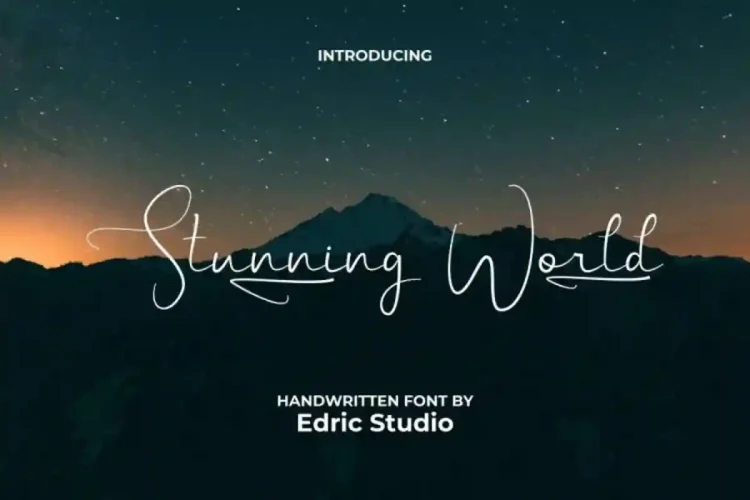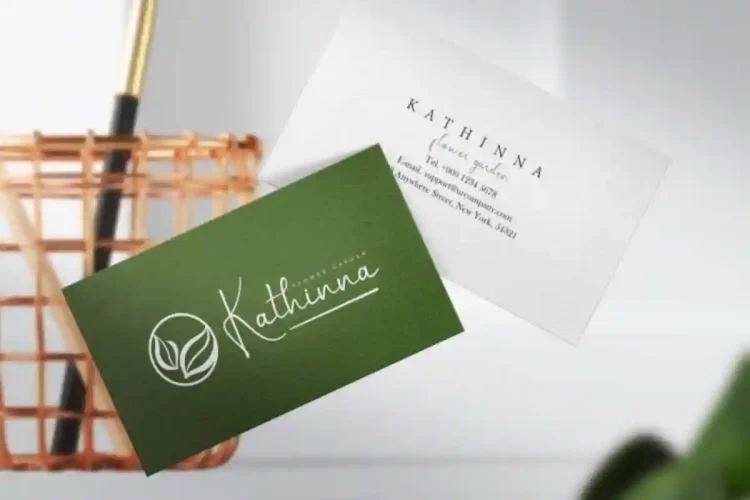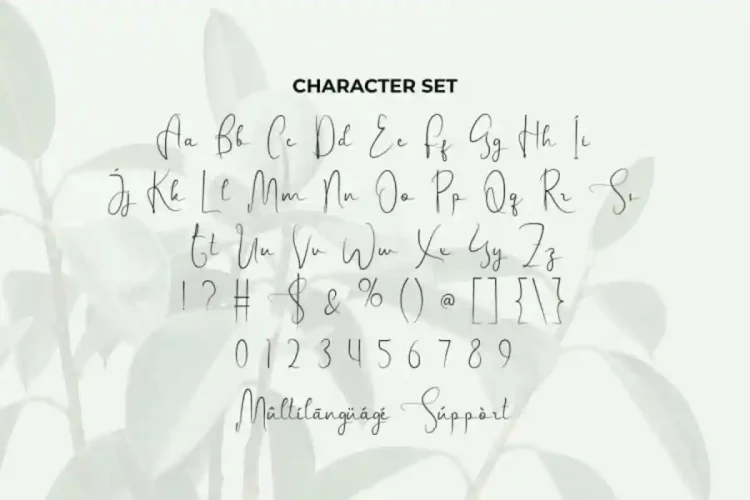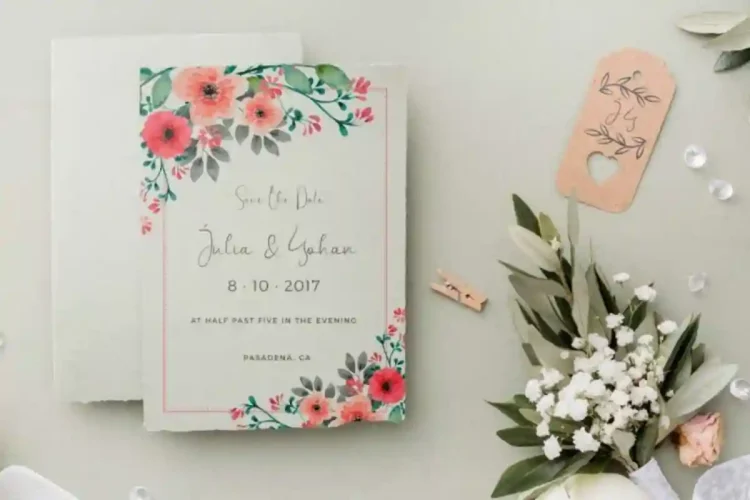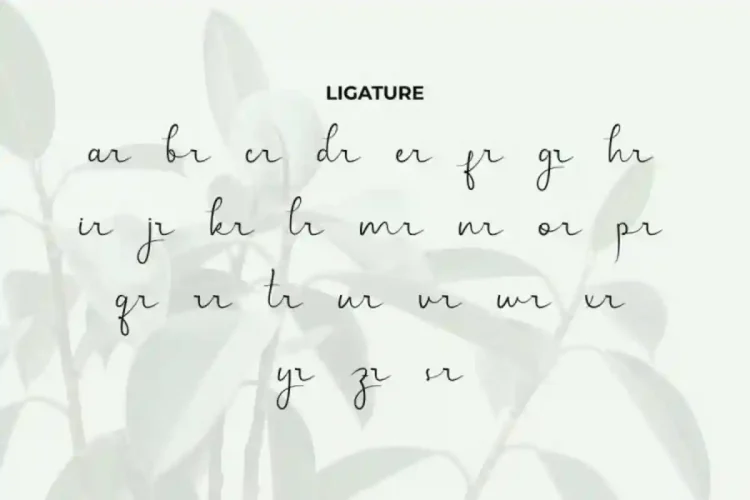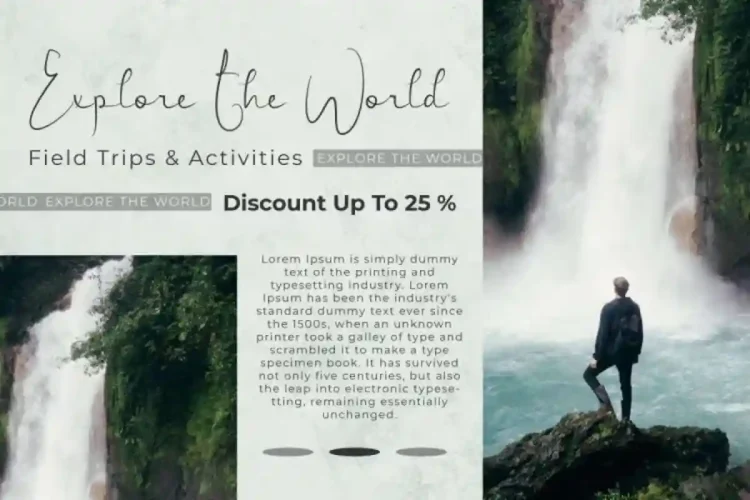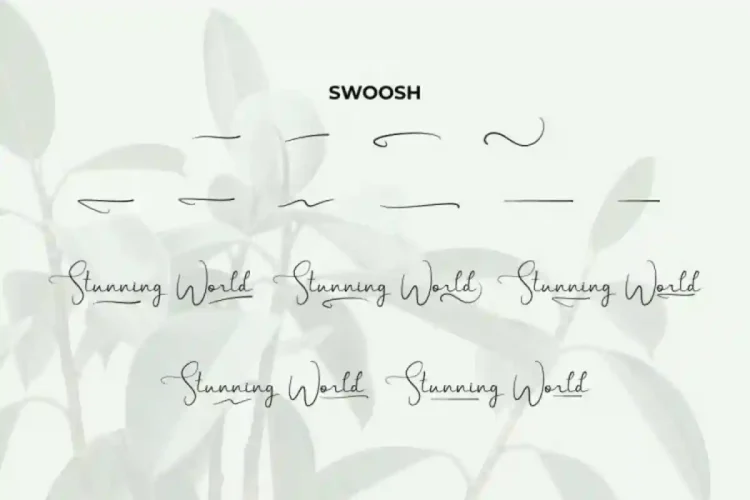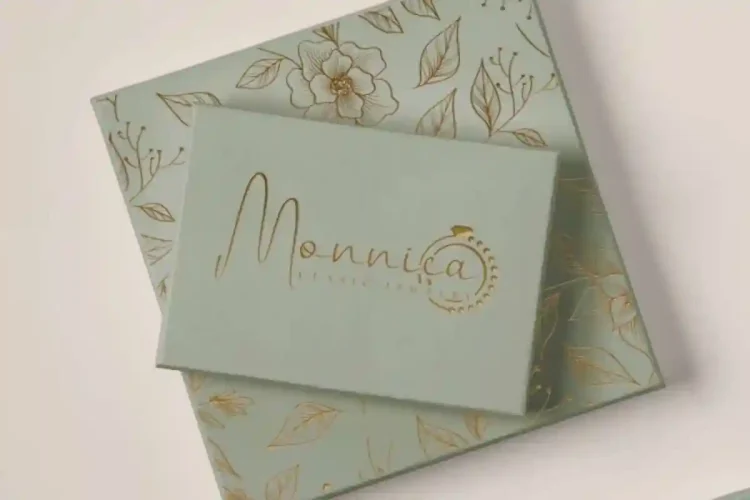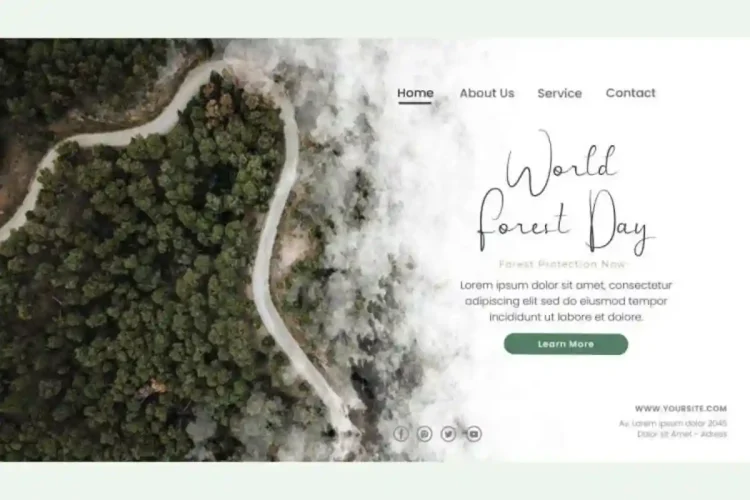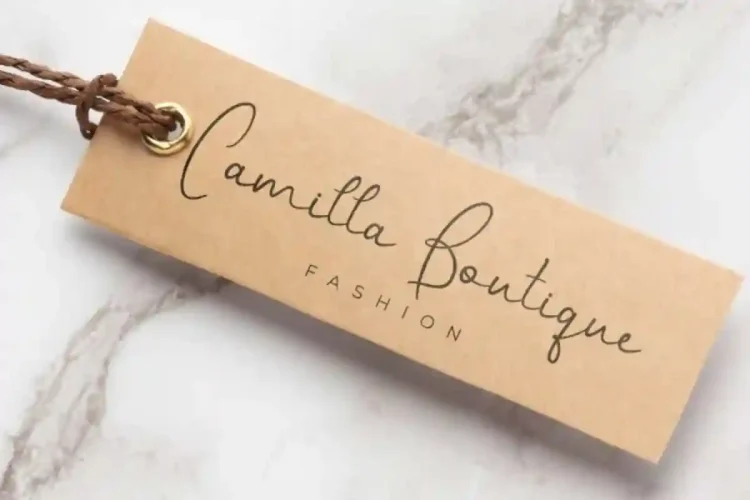
Stunning World Font a classy handwritten typeface created by EdricStudio. With its thin, stylish strokes and natural flow, this font delivers elegance and sophistication to every project. Perfect for industries like fashion, boutique, jewelry, photography, publishing, cake shops, event planning, spa, travel agencies, and florists, it adds a touch of authentic handwriting that feels timeless.
Stunning World Handwritting Font comes with a full set of Uppercase and Lowercase Basic Characters, Number, large range of Punctuation and Symbol, Ligature, Swoosh. It has a stunning characters set, perfectly managed with well spaced and kerning.
Stunning World Font is a playful typeface with unique decoration in each character. It’s tested to work well in the Adobe Apps (Illustrator, Adobe InDesign, Adobe Photoshop) even work on Microsoft Word. PUA Encode Characters means you can access all the glyphs and swashes with ease – Fully accessible without additional design software.